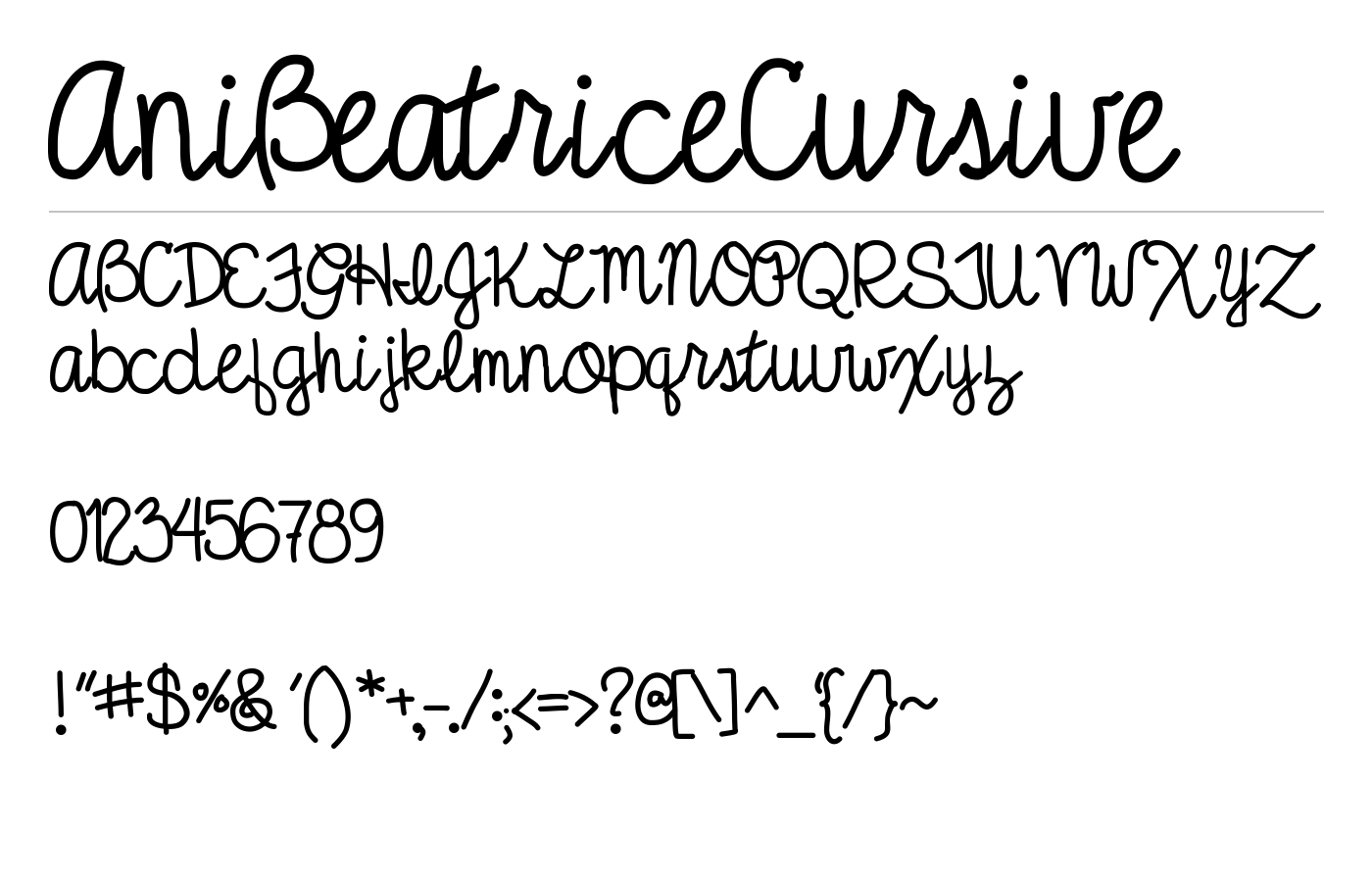
AniBeatriceCursive is a playful and informal script font characterized by its smooth, lightly rounded strokes and moderate x-height, giving it a friendly and approachable feel. The handwritten style, with its unique looping connections and casual flow, makes it perfect for personal branding, creative projects, and inviting headlines where a touch of warmth and personality is desired. Its clear legibility and moderate spacing also allow it to work well in both digital and print contexts, especially for invitations, social media graphics, and fun packaging designs.
AniBeatriceCursive Font
About AniBeatriceCursive Font